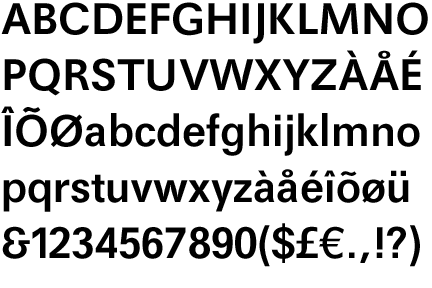
Originally developed by Typoart as a substitute for Helvetica, it became the most popular typeface in East Germany until the unification of Germany in 1989.
Designer: Gert Wunderlich
Year: 1962, 1979
Publisher: URW++